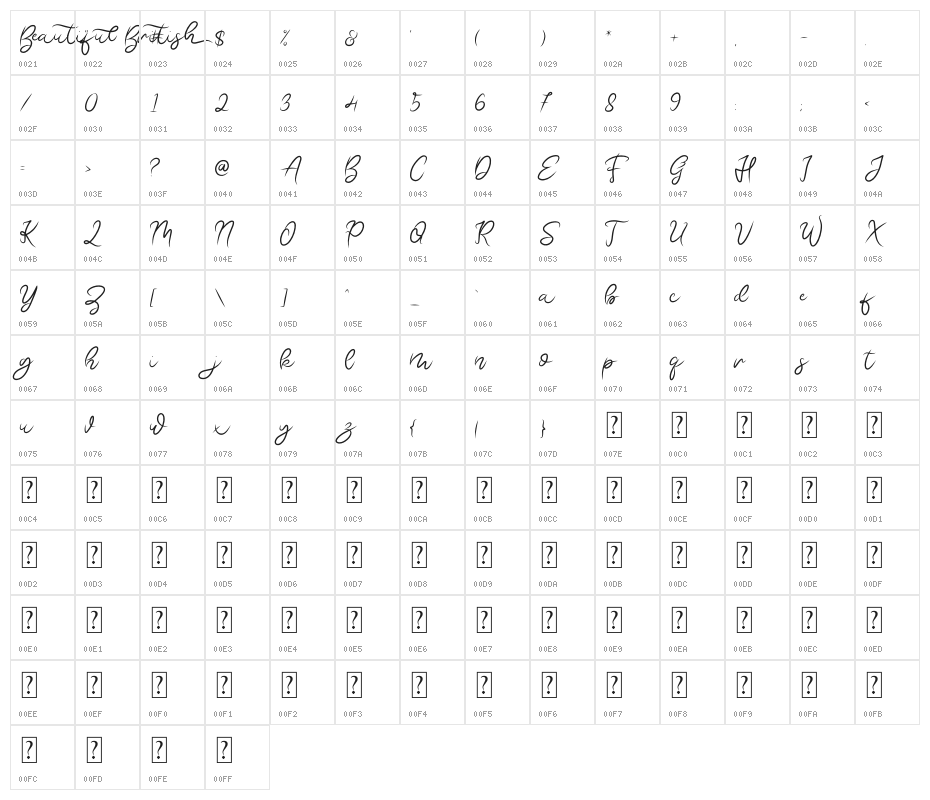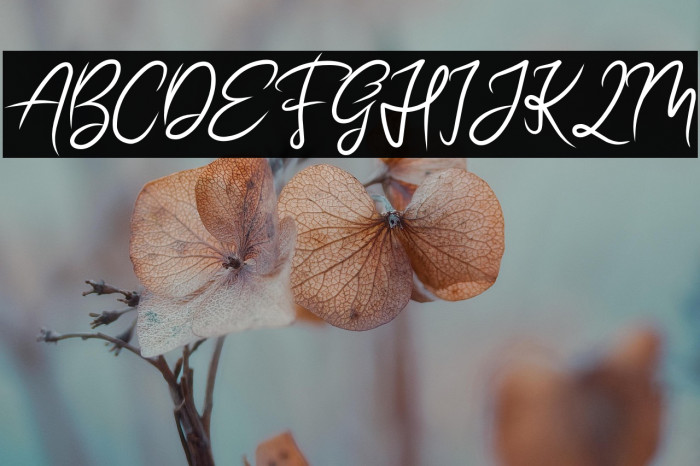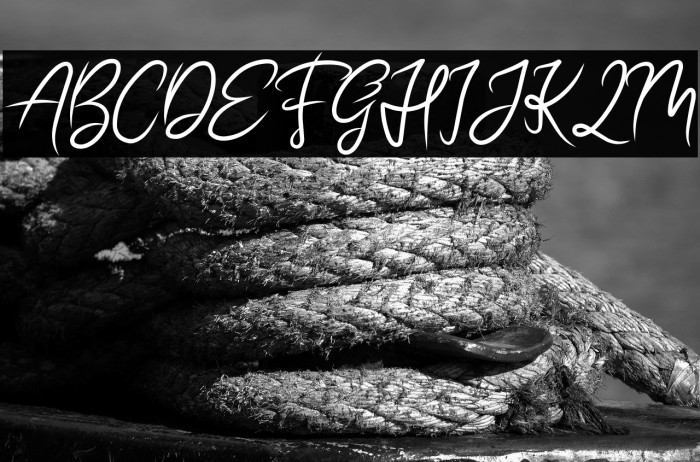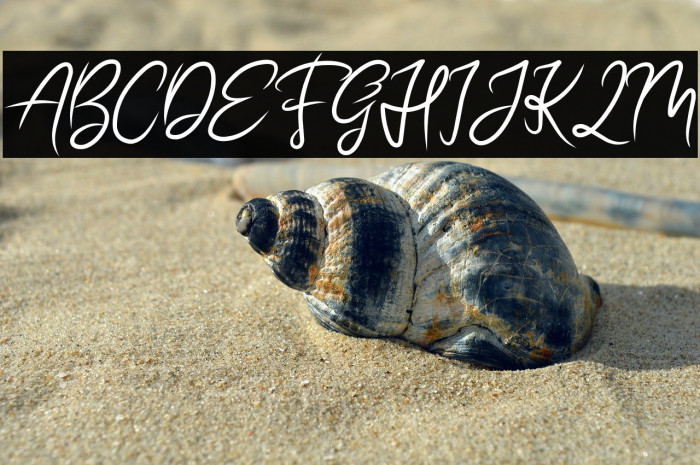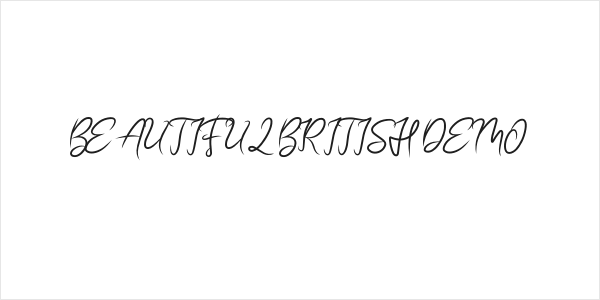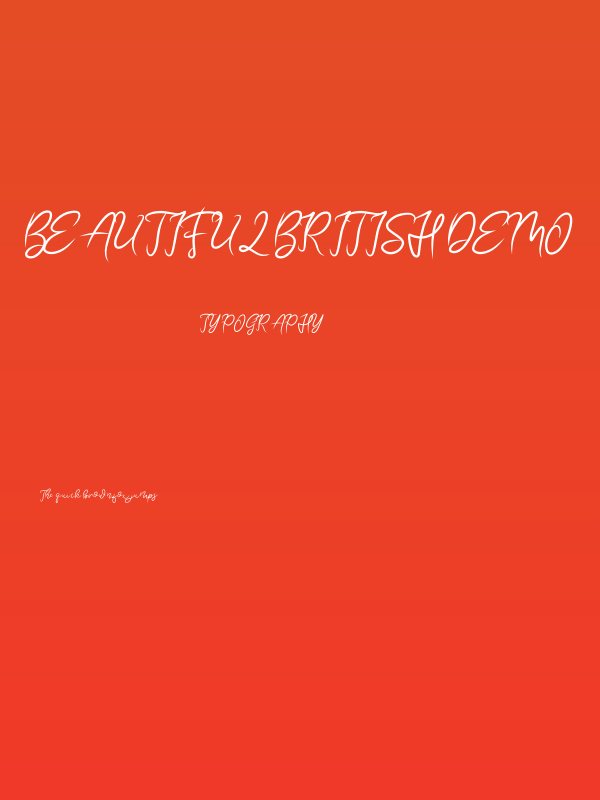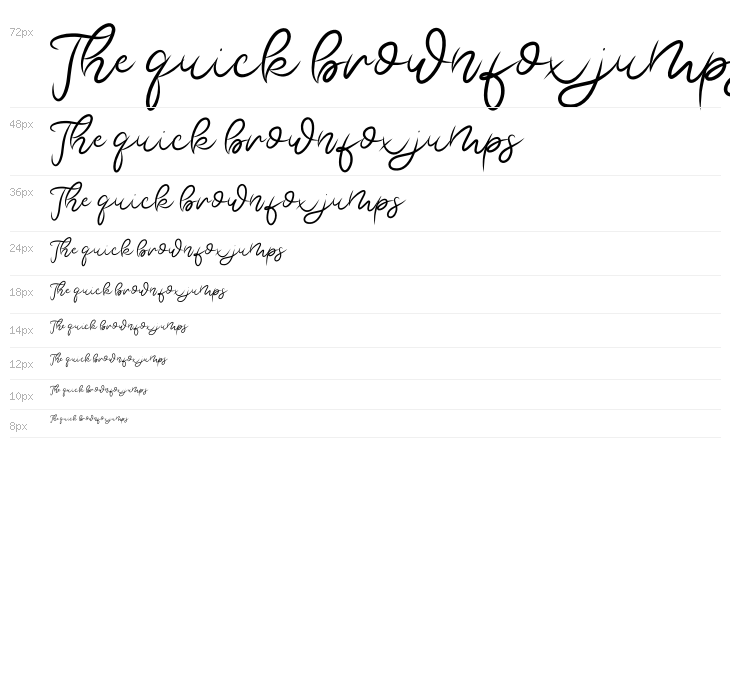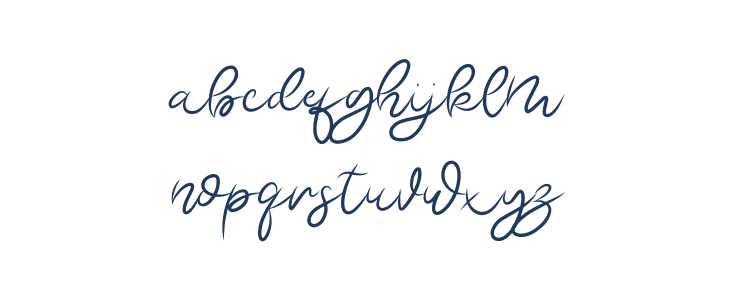
BEAUTIFUL BRITISH DEMO Font
BEAUTIFUL BRITISH DEMO Description
This elegant script font features a flowing, cursive style with smooth, connected strokes that emulate the fluidity of handwriting. The uppercase letters are tall and graceful, with sweeping ascenders and descenders that add a touch of sophistication. The lowercase letters maintain a consistent rhythm, enhancing readability while preserving the font's decorative nature. Numbers and special characters are designed to complement the overall aesthetic, making them suitable for a variety of applications. The font's delicate curves and loops convey a sense of elegance and refinement, ideal for projects that require a personal, artistic touch.
| Overall Style | Elegant, Decorative |
| Proposed Projects | Ideal for wedding invitations, greeting cards, branding, and elegant stationery. |